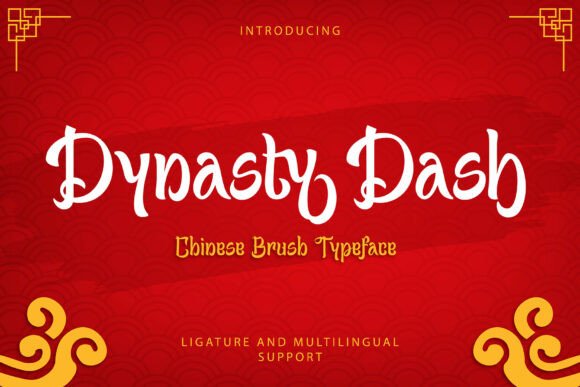
Dynasty Dash Font: A Bold and Festive Typeface Inspired by Traditional Chinese Calligraphy
Are you looking for a font that embodies the spirit of celebration, prosperity, and cultural pride? Look no further than Dynasty Dash, a bold Chinese brush display typeface that combines traditional calligraphy with modern decorative elements. Inspired by the festive aesthetics of Lunar New Year, this font is perfect for designers and crafters seeking to add a touch of heritage elegance to their projects.
Traditional Inspiration with a Modern Twist
Dynasty Dash is a unique blend of traditional and modern design elements. Its bold, expressive brush strokes and dynamic curves evoke the classic beauty of Chinese calligraphy, while its handcrafted details and decorative rhythm bring a fresh, modern feel. This font is perfect for designers looking to create authentic and eye-catching compositions that showcase the richness of Chinese culture.
Key Features of Dynasty Dash
Dynasty Dash comes complete with a wide range of features that make it an ideal choice for designers. These include:
- Uppercase and lowercase letters for versatile typography
- Numerals, punctuation, and special characters for comprehensive text rendering
- Stylistic alternates and ligatures for added visual interest
- Multilingual support for global design applications
Perfect for Festive and Cultural Designs
Dynasty Dash is specifically designed for use in festive and cultural designs, making it perfect for:
- Chinese New Year posters and lantern festival designs
- Red envelope packaging and restaurant branding
- Take-away boxes and cultural event promotions
- Greeting cards and oriental-themed merchandise
Whether you’re designing for print or digital media, Dynasty Dash brings warmth, festivity, and a powerful traditional presence to your projects. Its strong readability and visual impact make it an excellent choice for headlines, titles, and promotional materials.
Why Choose Dynasty Dash?
There are many reasons why designers and crafters will love Dynasty Dash:
- Unique and authentic design: Dynasty Dash offers a distinctive and genuine representation of traditional Chinese calligraphy, perfect for designers seeking to add cultural depth to their work.
- Highly versatile: With its comprehensive character set and range of features, Dynasty Dash can be used in a wide variety of design applications.
- Ease of use: This font is designed to be easy to read and work with, making it perfect for designers of all skill levels.
- Cultural significance: By using Dynasty Dash, designers can showcase their appreciation for Chinese culture and tradition, adding an extra layer of meaning to their work.
Tips for Using Dynasty Dash
To get the most out of Dynasty Dash, here are a few design tips:
- Experiment with color: Dynasty Dash looks stunning in bold, vibrant colors, so don’t be afraid to get creative with your color palette.
- Mix and match: Combine Dynasty Dash with other fonts to create visually interesting compositions and add depth to your designs.
- Pay attention to spacing: Make sure to leave enough space between lines and around the font to ensure optimal readability.
Dynasty Dash is a bold, festive, and culturally-inspired font that’s perfect for designers and crafters looking to add a touch of traditional Chinese elegance to their projects. With its unique design, comprehensive features, and ease of use, this font is sure to become a go-to choice for anyone seeking to create authentic and eye-catching compositions. So why wait? Download Dynasty Dash today and start bringing the spirit of celebration and cultural pride to your designs!